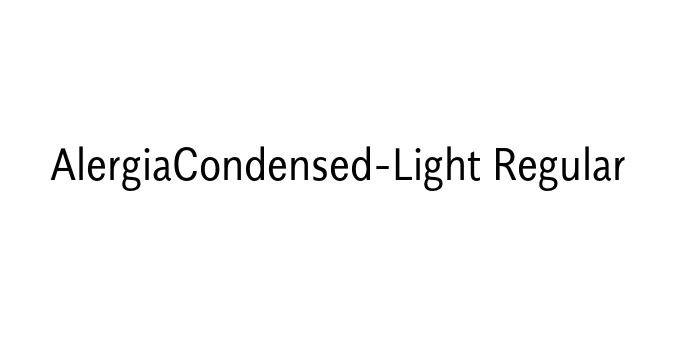
AlergiaCondensed-Light Regular
Designed by Mateusz Machalski
Alergia Condensed Light Regular is a sophisticated member of the Alergia superfamily, designed by the acclaimed Polish typographer Mateusz Machalski. This typeface represents a unique fusion of rigid geometric structures and more organic, humanistic strokes. The condensed nature of this specific variant allows for efficient use of vertical space, making it a powerful tool for designers working with tight layouts or complex information hierarchies.
Released through the Borutta Group, the font excels in its legibility and modern aesthetic. The Light weight specifically emphasizes elegance and clarity, making it a favorite for high-end fashion branding, architectural documentation, and minimalist web design. Its versatility is further enhanced by its wide character set, ensuring it remains functional across various languages and typographic environments.
AlergiaCondensed-Light Regular Best Uses
Perfect for magazine headlines and detailed body text in narrow columns.
Ideal for creating a sleek, professional image in logos and business stationery.
Excellent for mobile-responsive designs where horizontal space is at a premium.
Great for posters and flyers requiring a clean, contemporary look.